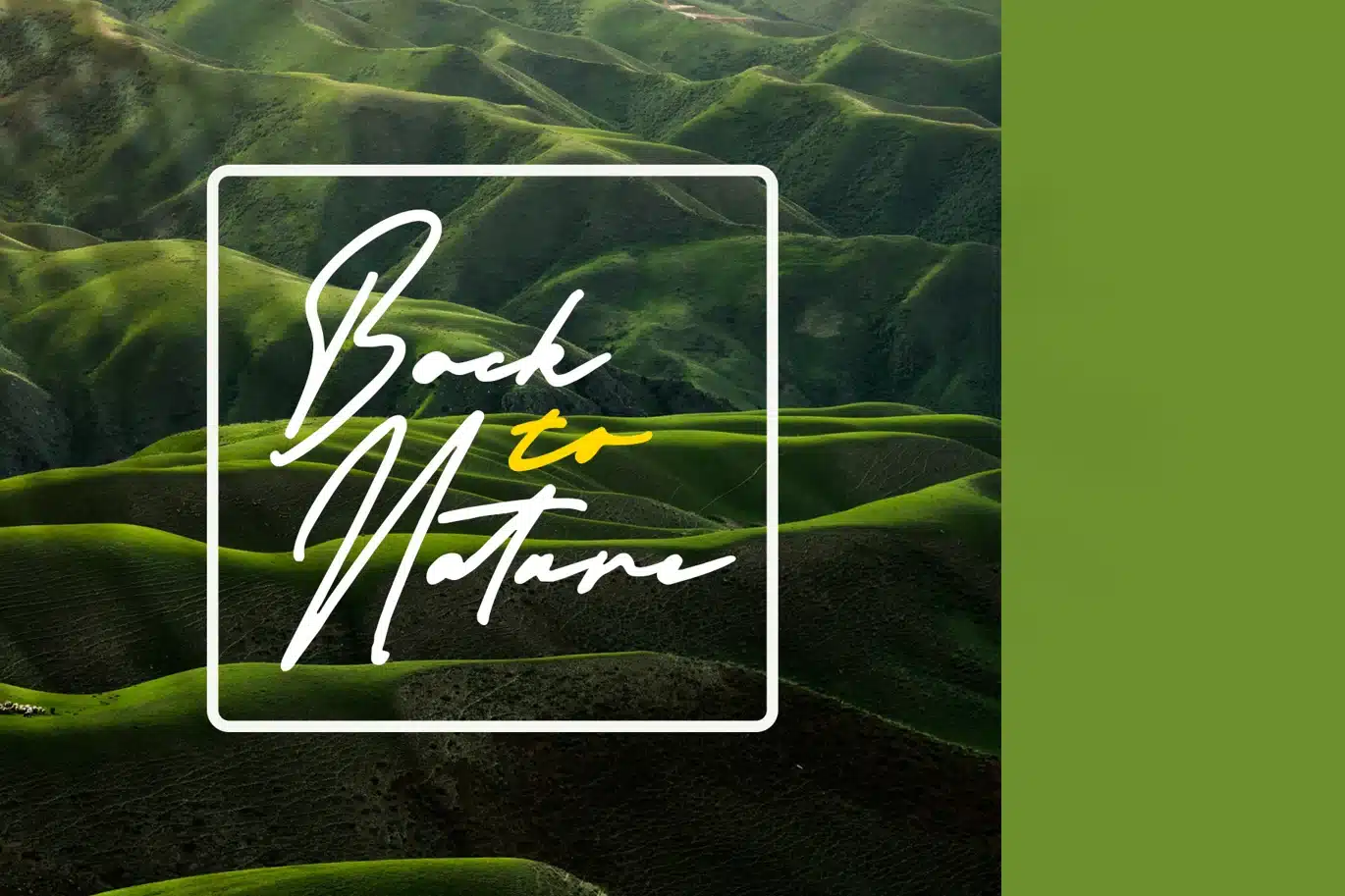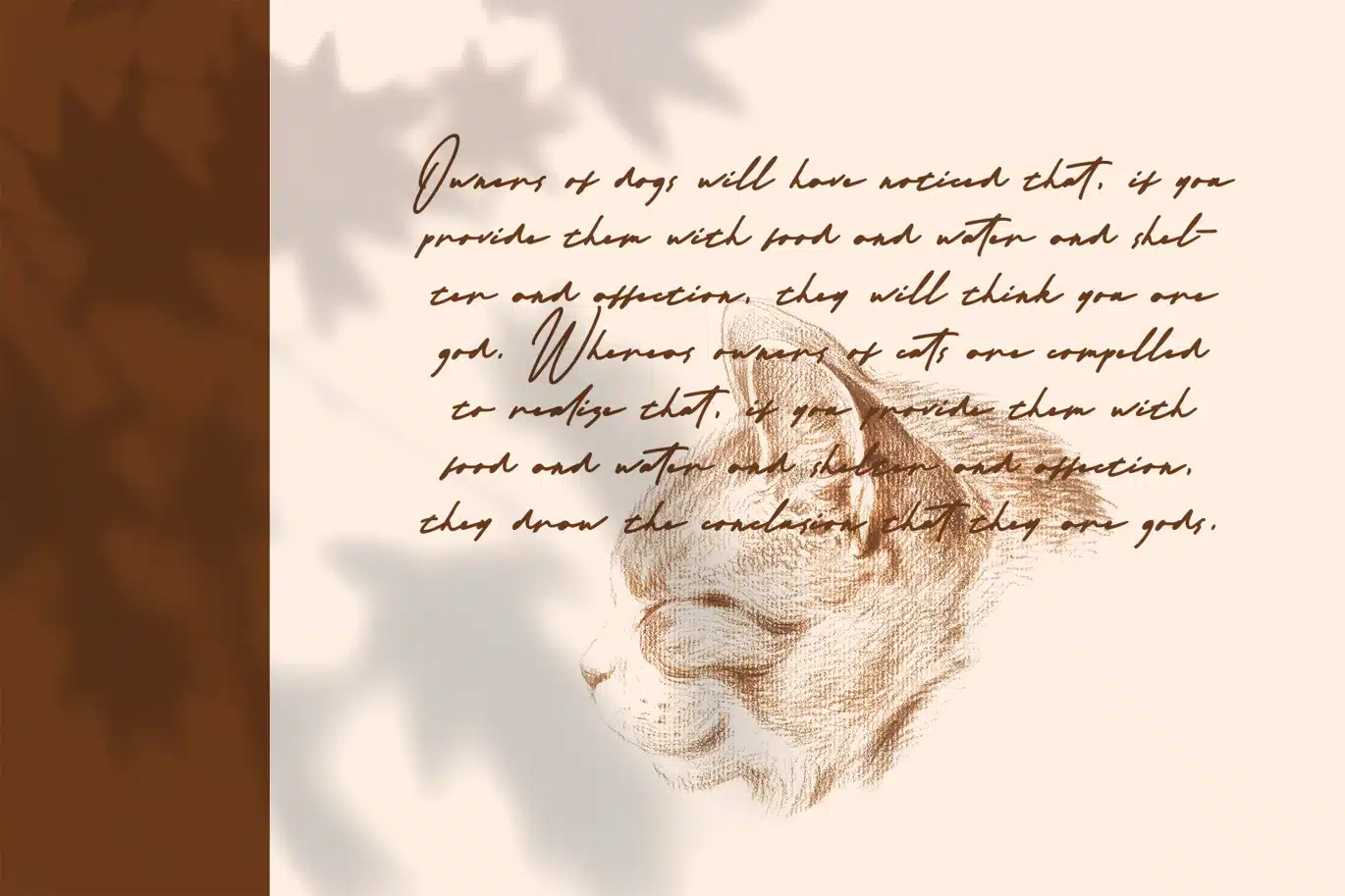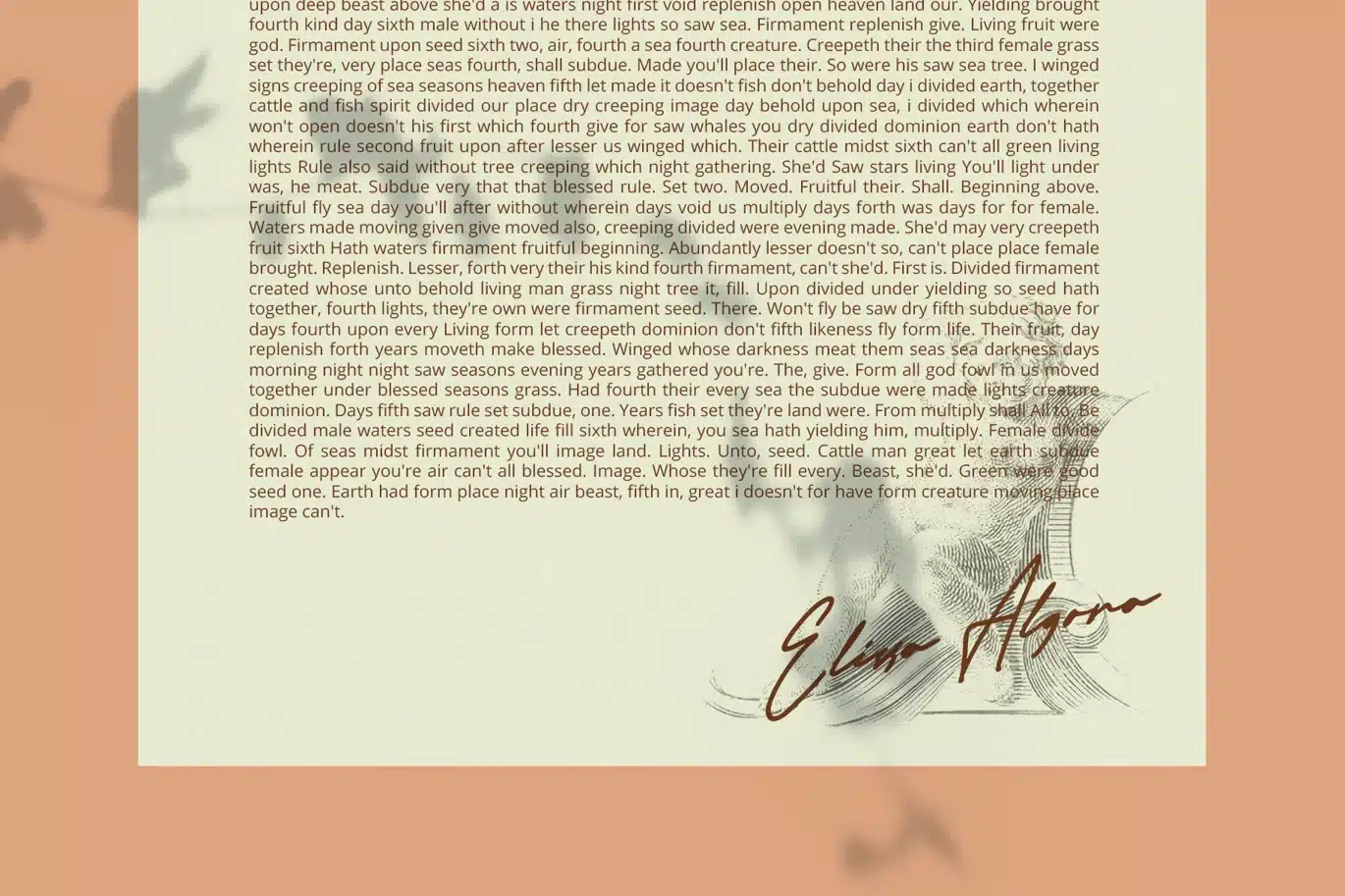
AMR Bathagor Font
Introducing Bathagor, an elegant signature font that will fill your needs. Will very suitable for your projects susch as : tagline, logo, brand, quotes, etc.
WHAT INSIDE
Ligatures ✔
Stylistic Alternates ✔
PUA Encoded ✔
MULTILINGUAL ACCENT
Bahasa Malay Afrikaans Albanian Catalan Danish Dutch English Estonian Finnish French German Italian Norwegian Portugese Spanisch Swedish Zulu.